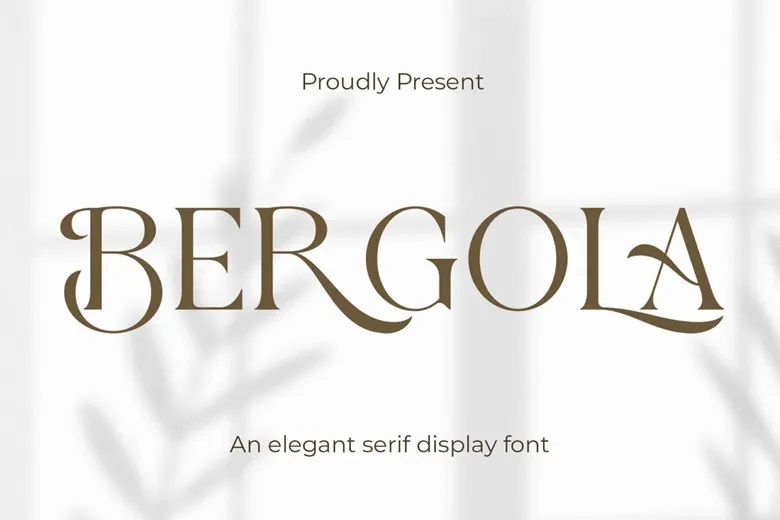
Bergola Font
Bergola is an elegant serif font with a modern, minimalist style. It adds a touch of luxury and sophistication to projects like websites, logos, brand identities, social media posts, wedding stationery, magazines, and more. Bergola offers distinctive, stylish capital letters from A to Z, along with special alternates and ligatures.
Bergola Serif Font